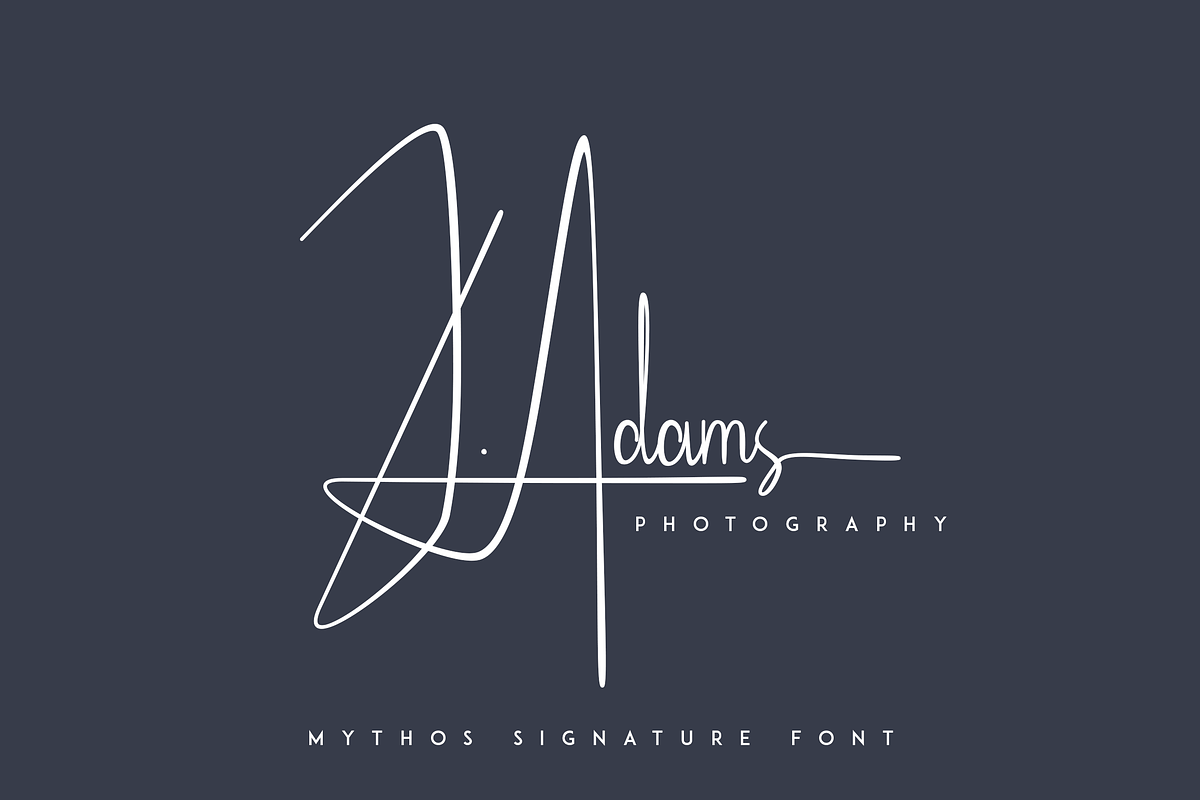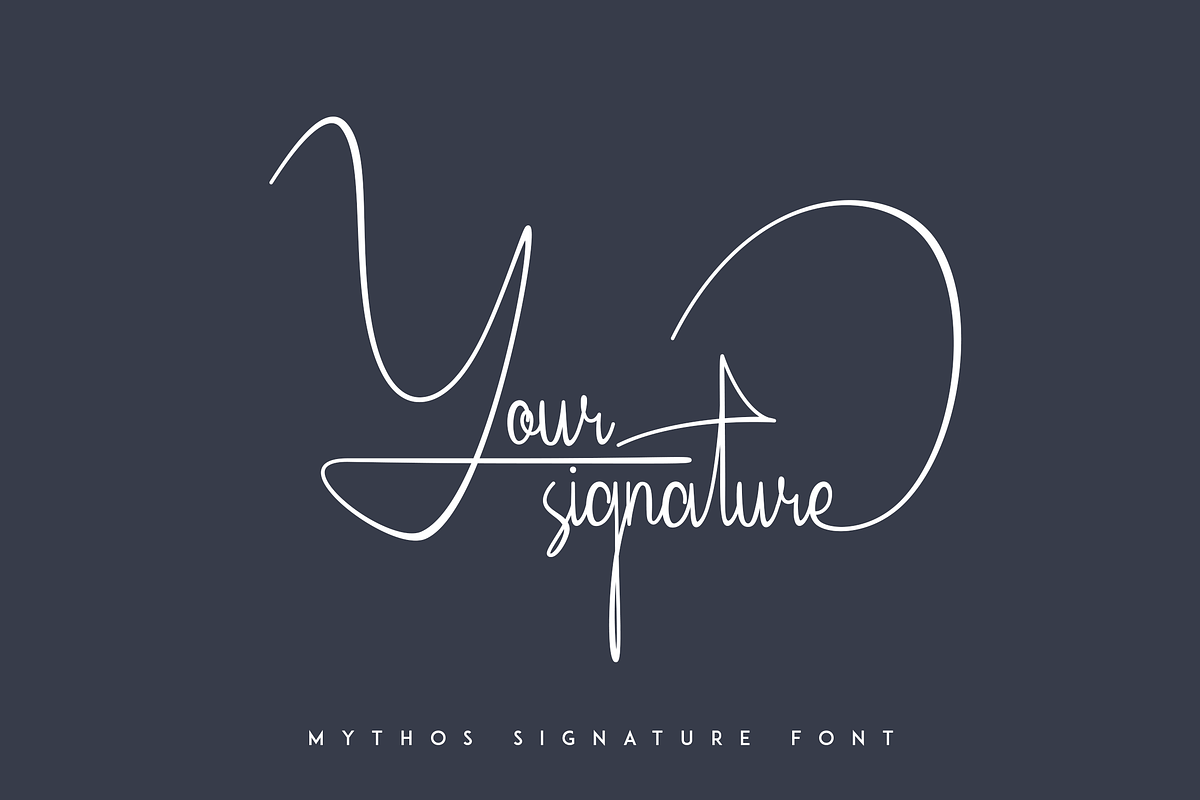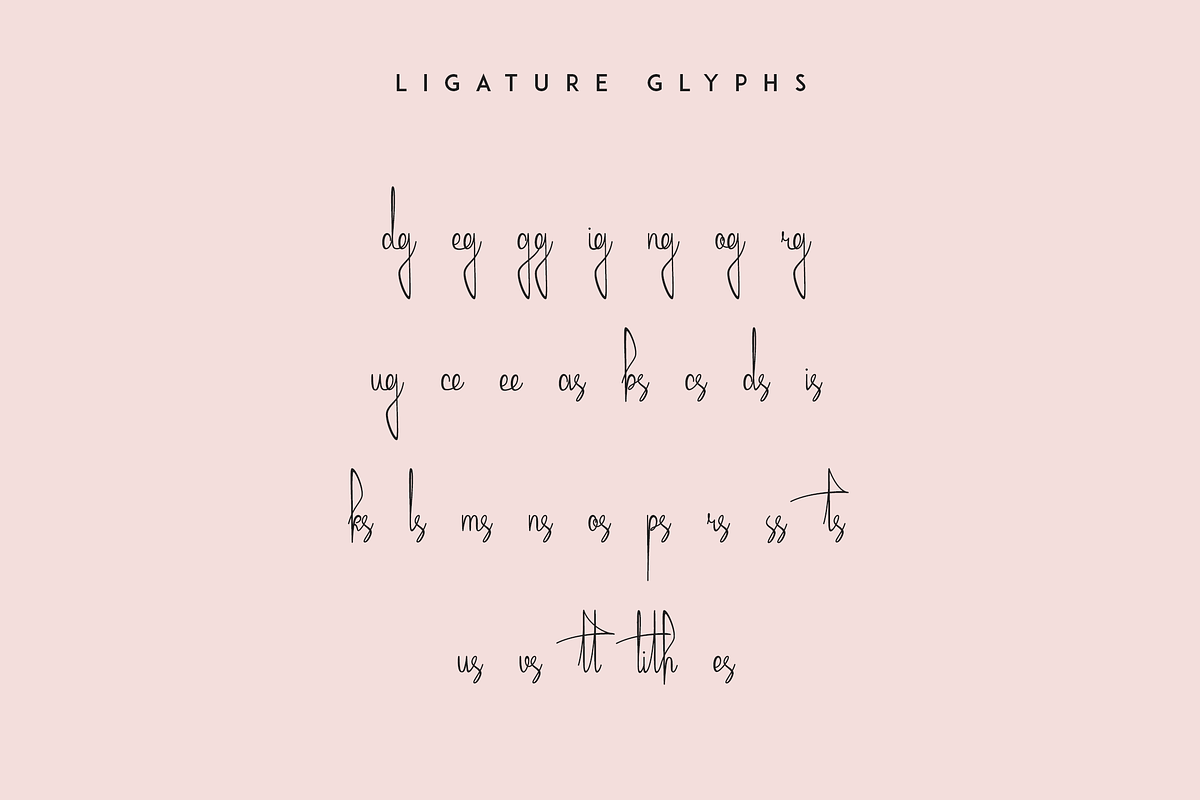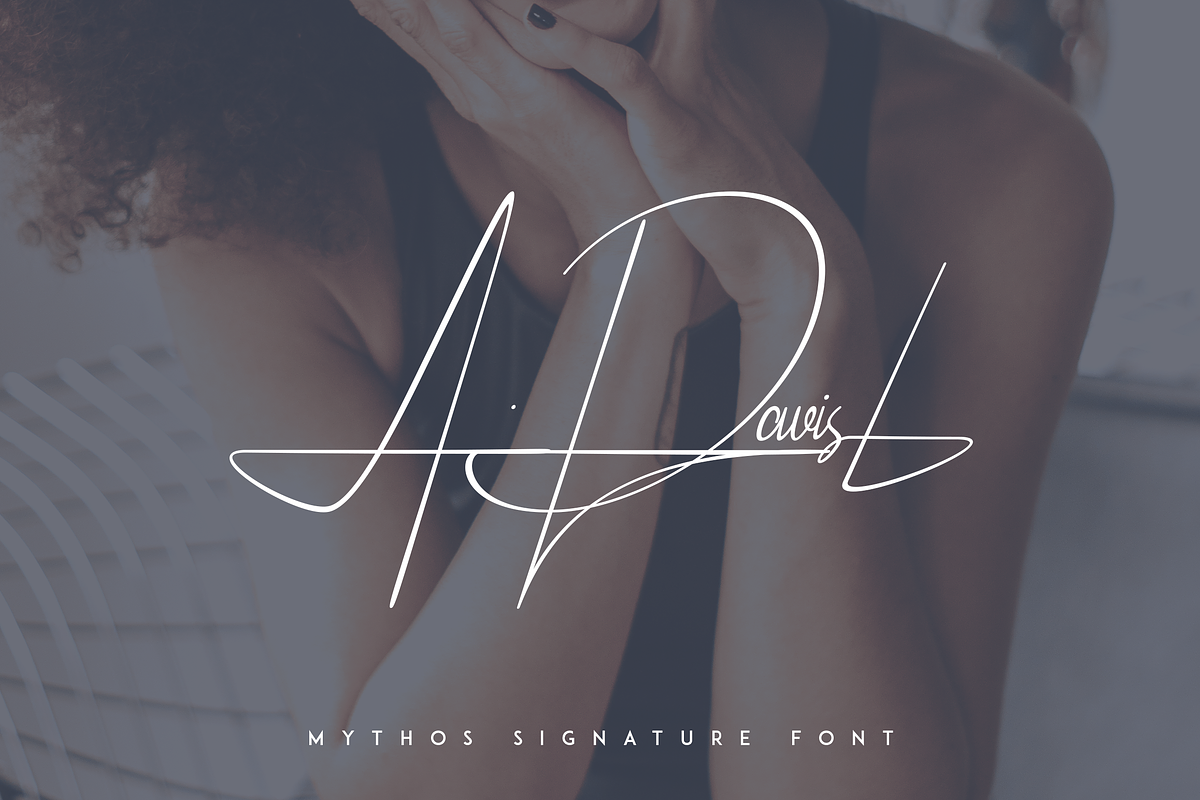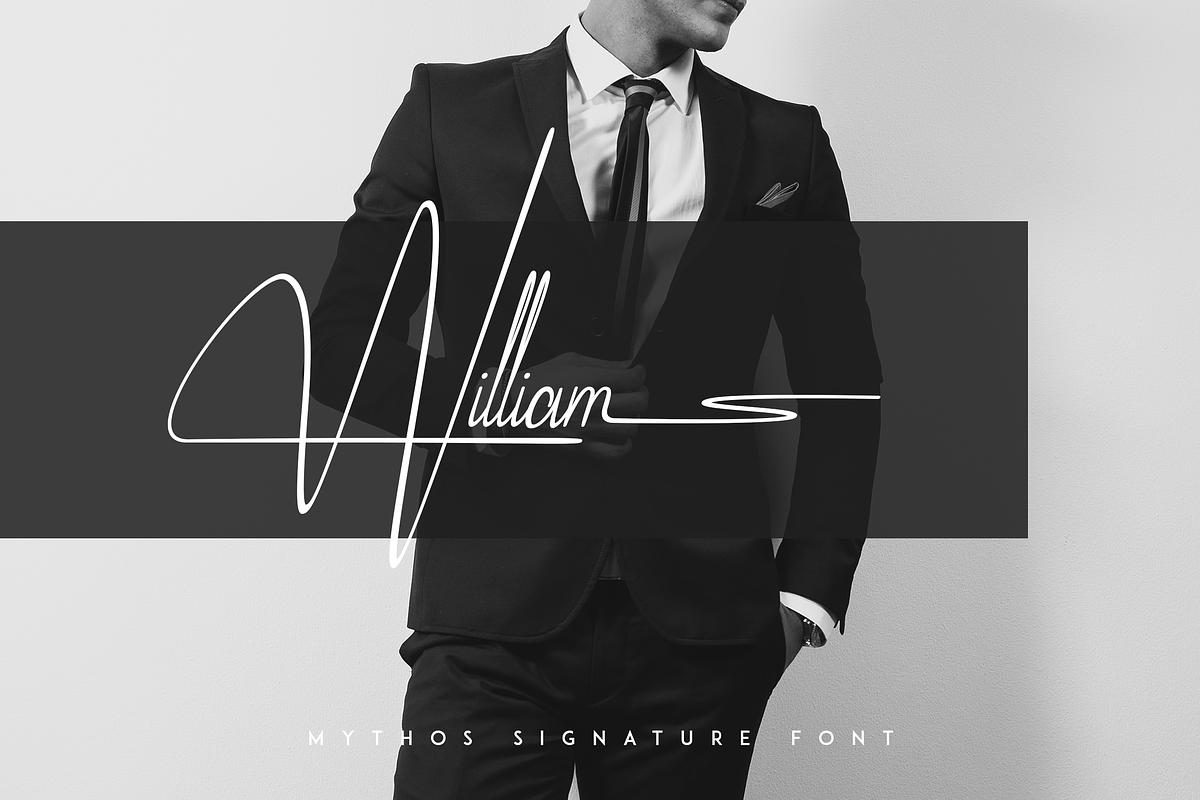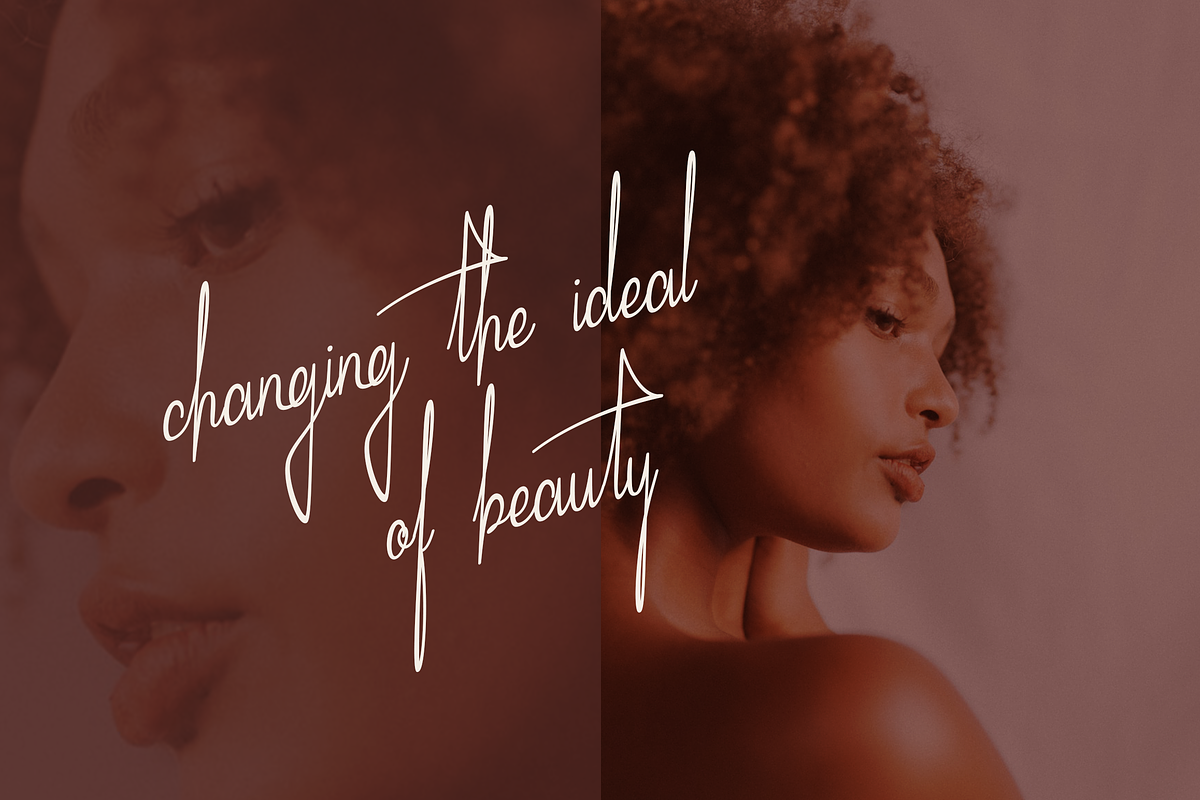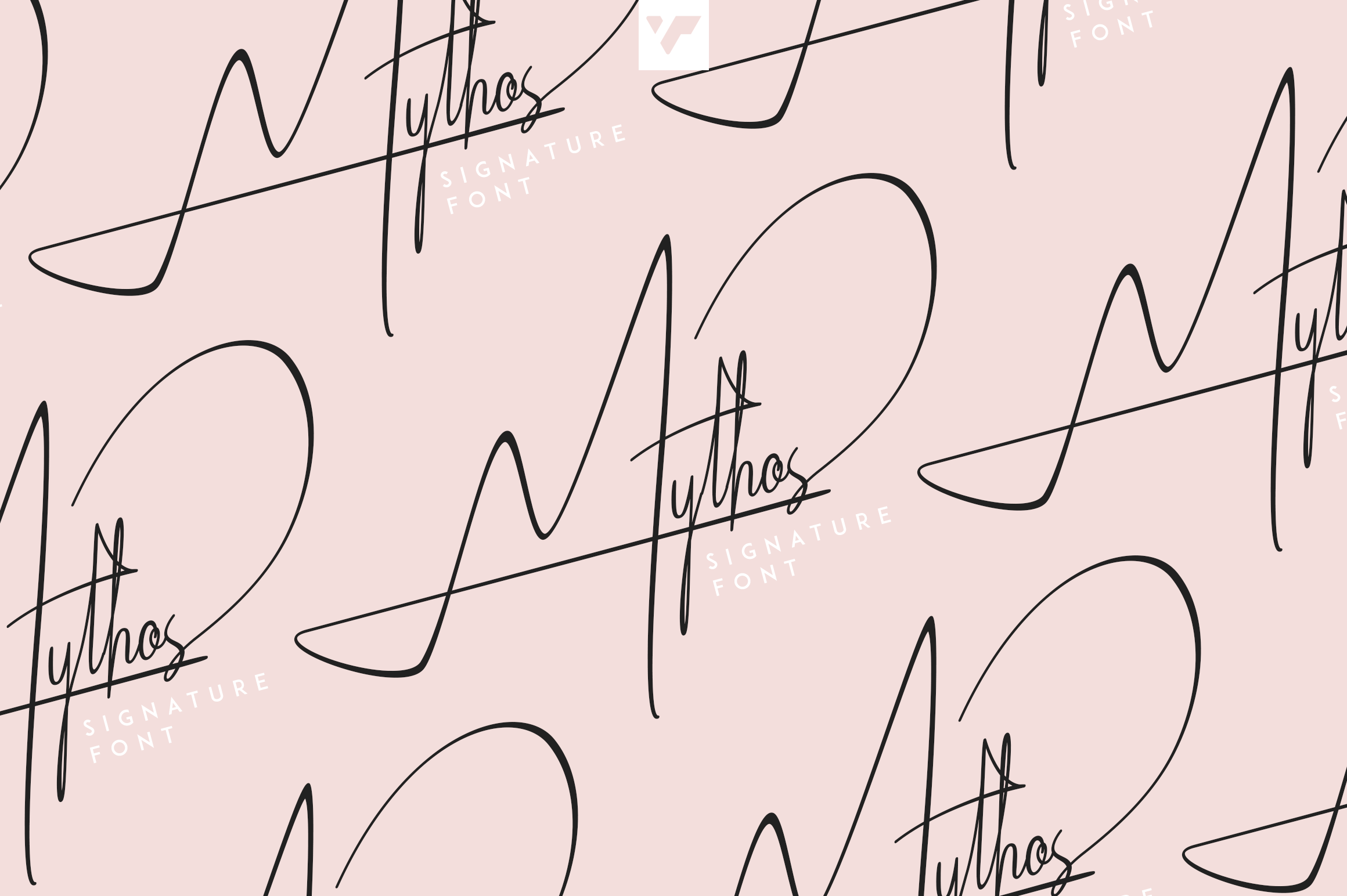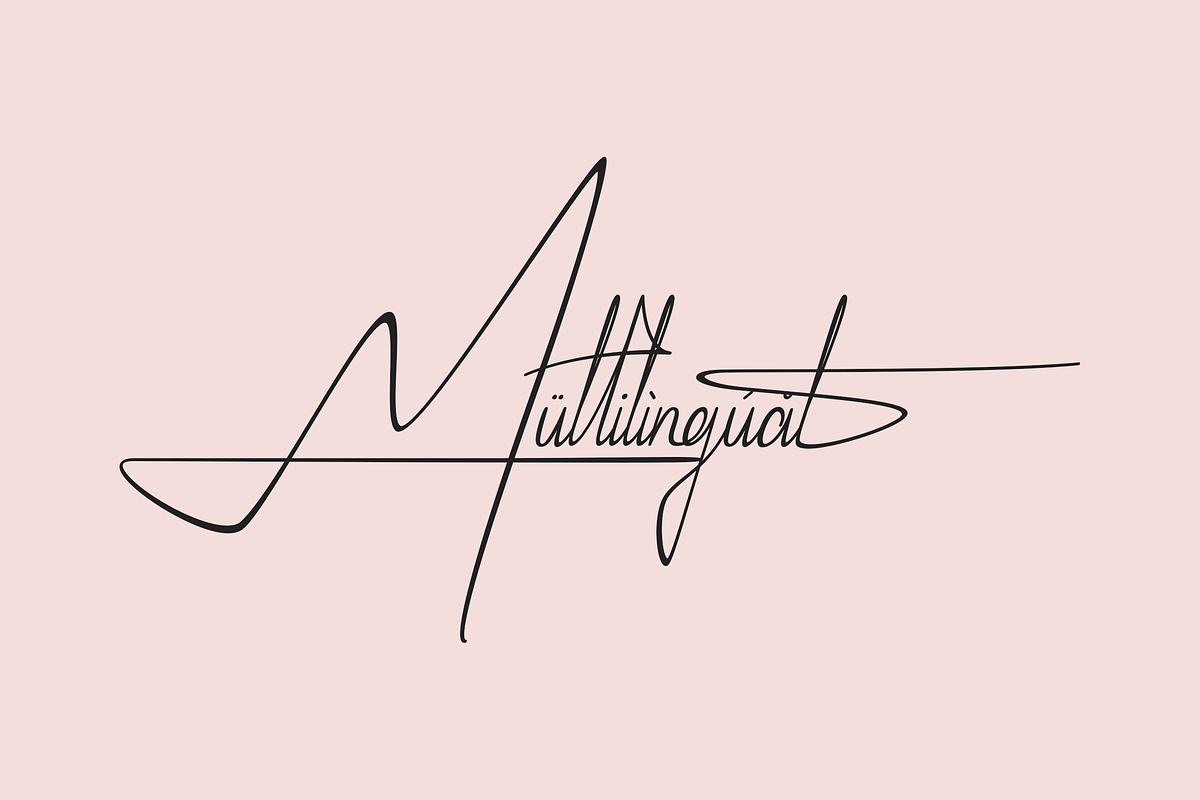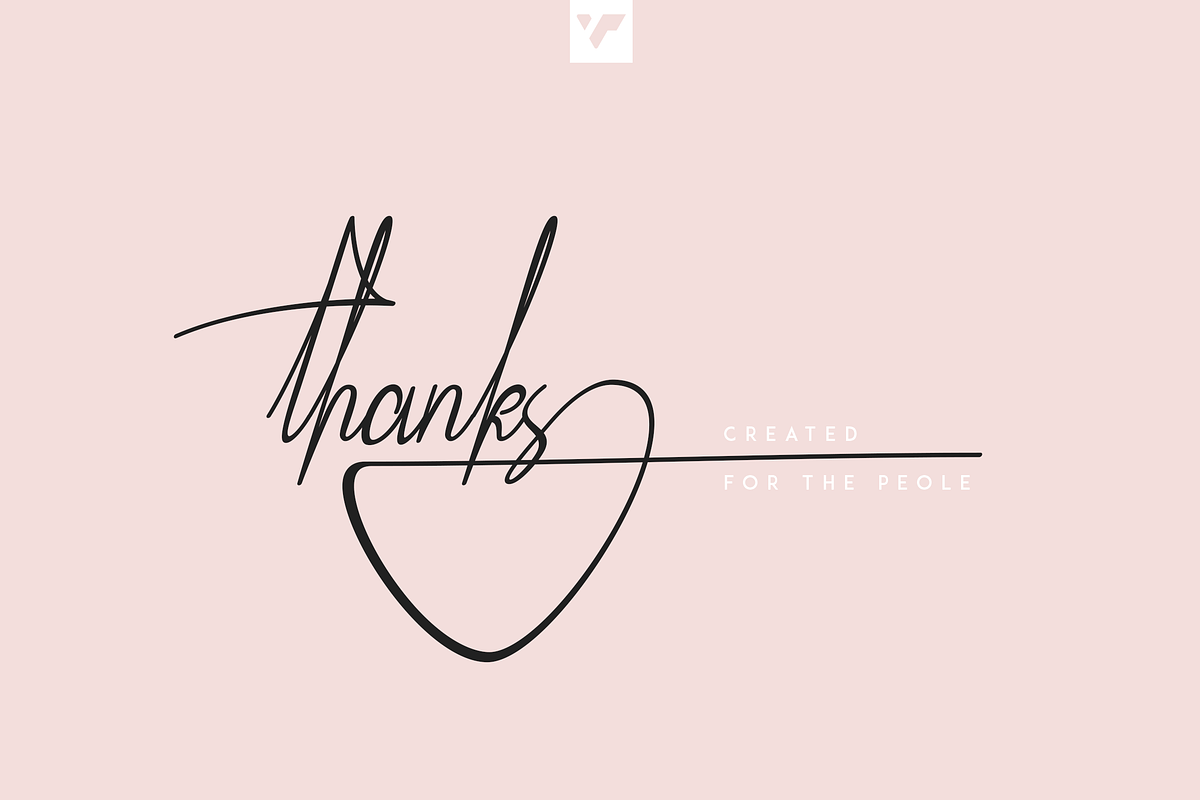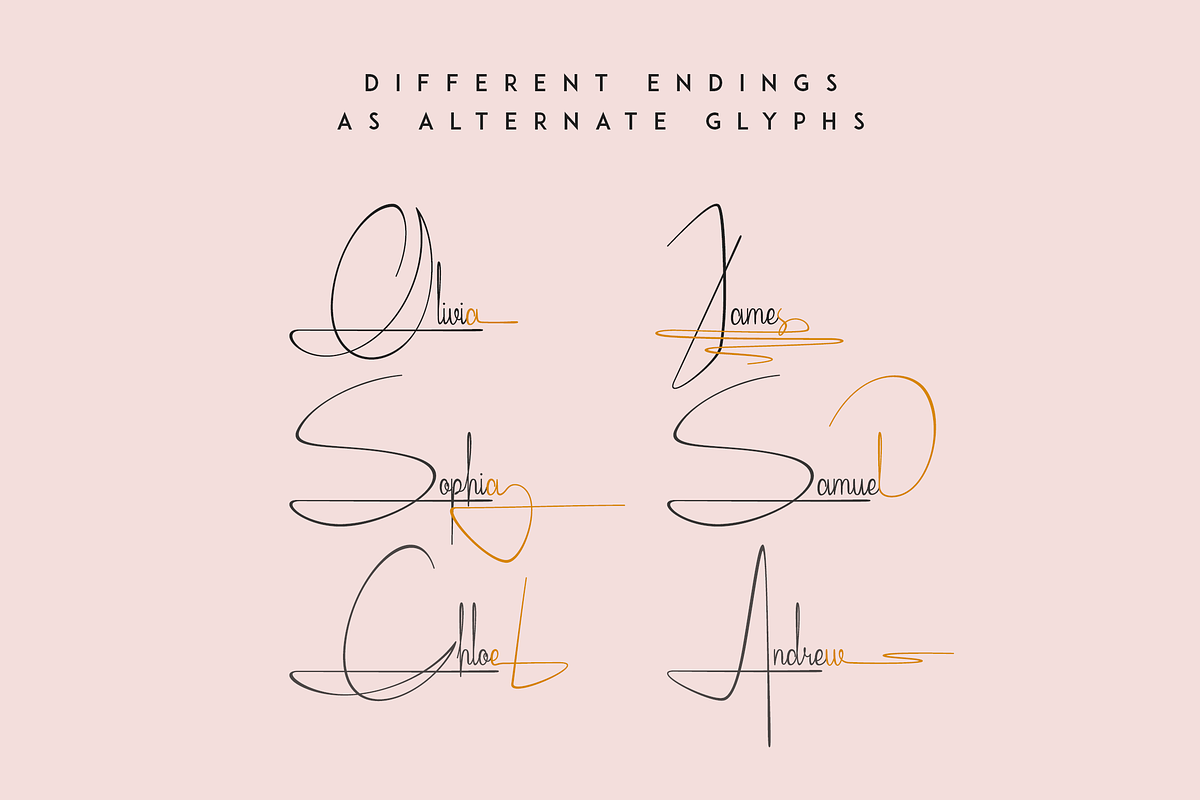
Mythos - organic signature font
Introducing Mythos, an enchanting organic signature script that adds a touch of elegance to your designs and projects. With its regular and italic versions, Mythos offers a versatile range of possibilities for expressing your creativity.
Mythos is crafted with meticulous attention to detail, capturing the fluidity and grace of hand-drawn signatures. Its organic strokes flow seamlessly, creating a harmonious balance between sophistication and approachability.
This remarkable script typeface doesn't just excel in its aesthetic appeal; it also boasts an impressive language support, accommodating 87 languages from around the world. So whether you're designing for a global audience or looking to add a personal touch to your work in your native language, Mythos has got you covered.
With Mythos, you can effortlessly infuse your projects with a touch of elegance and charm. From wedding invitations to branding materials, personal blogs to advertisements, this signature script is bound to leave a lasting impression.
So unleash your creativity, embrace the artistry of Mythos, and let its graceful curves and beautiful letterforms transport your designs to new heights.
Language Support : Afrikaans, Albanian, Asu, Basque, Bemba, Bena, Breton, Chiga, Colognian, Cornish, Czech, Danish, Dutch, Embu, English, Estonian, Faroese, Filipino, Finnish, French, Friulian, Galician, Ganda, German, Gusi,i Hungarian, Indonesian, Irish, Italian, Jola-Fonyi, Kabuverdianu, Kalenjin, Kamba, Kikuyu, Kinyarwanda, Latvian, Lithuanian, Lower Sorbian, Luo, Luxembourgish, Luyia, Machame, Makhuwa-Meetto, Makonde, Malagasy, Maltese, Manx, Meru, Morisyen, North Ndebele, Norwegian, Bokmål, Norwegian, Nynorsk, Nyankole, Oromo, Polish, Portuguese, Quechua, Romanian, Romansh, Rombo, Rundi, Rwa, Samburu, Sango, Sangu, Scottish, Gaelic, Sena, Shambala, Shona, Slovak, Soga, Somali, Spanish, Swahili, Swedish, Swiss, German, Taita, Teso, Turkish, Upper, Sorbian, Uzbek (Latin), Volapük, Vunjo, Walser, Welsh, Western Frisian, Zulu